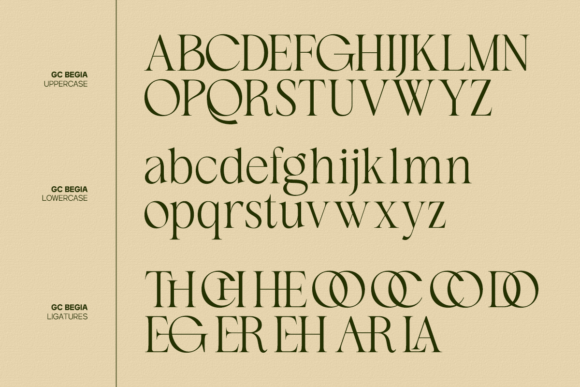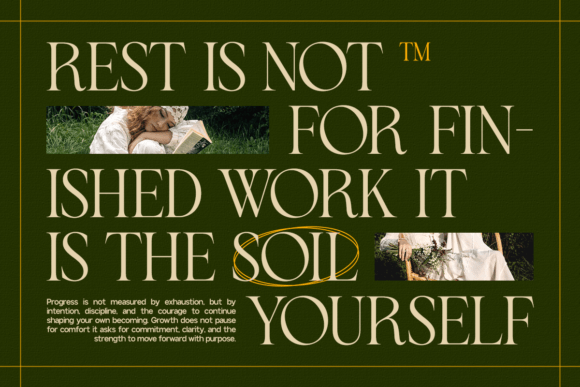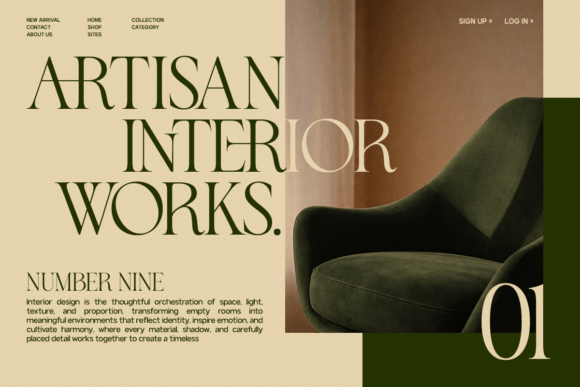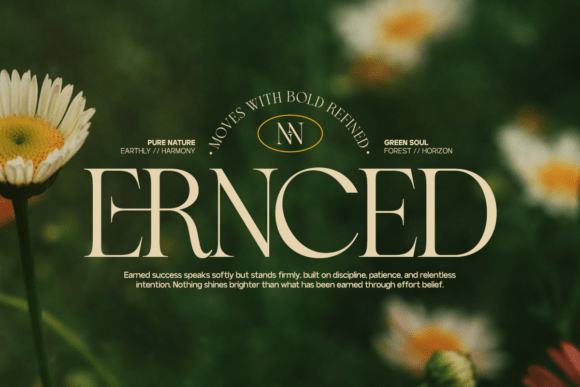
Begia Font
Begia is a refined typeface designed to express elegance, sophistication, and contemporary luxury. Blending modern design principles with a luxurious aesthetic, Begia is perfect for high-end branding, fashion editorials, beauty packaging, premium logos, and sophisticated visual identities. Thoughtfully designed to bring harmony and character to your typography, Begia adapts effortlessly to a wide range of creative projects—from bold headlines to elegant compositions.